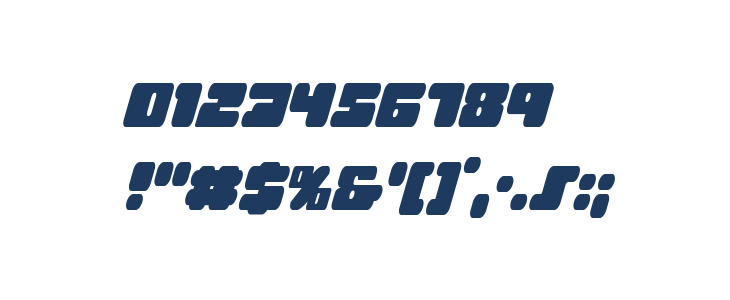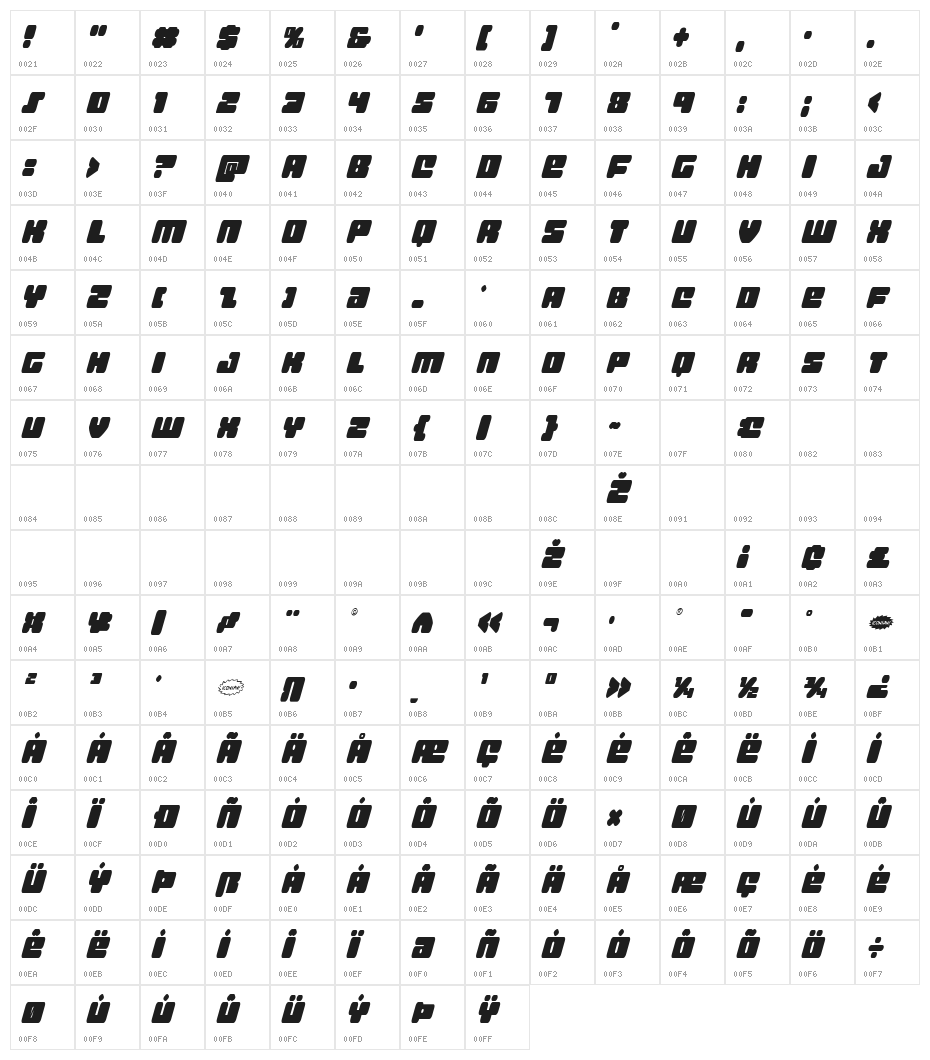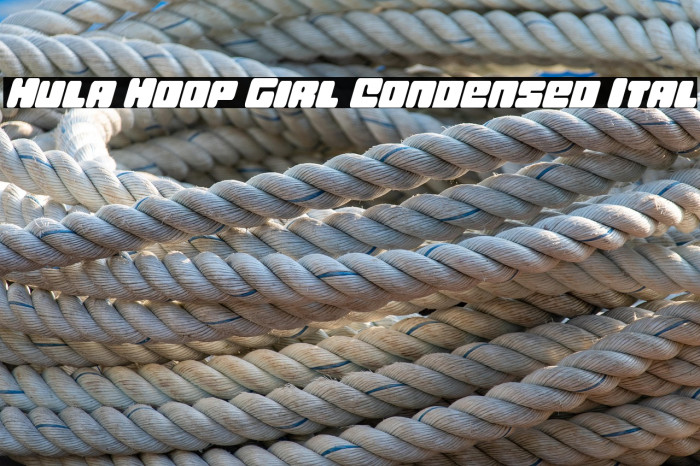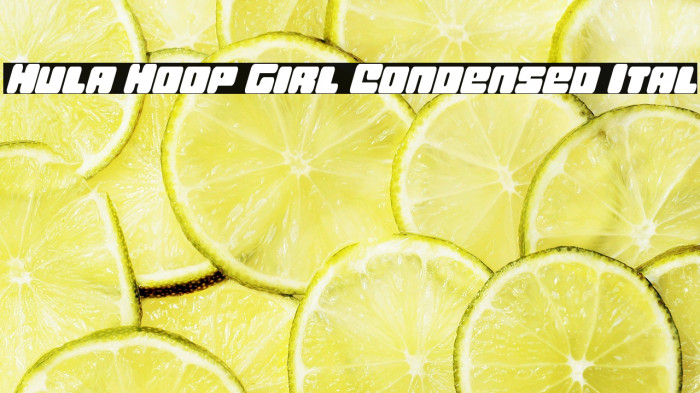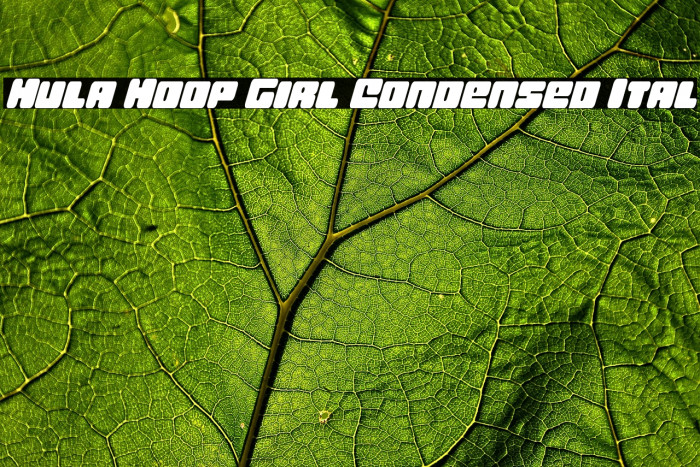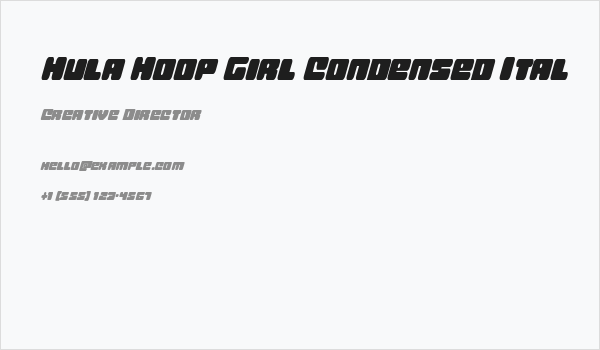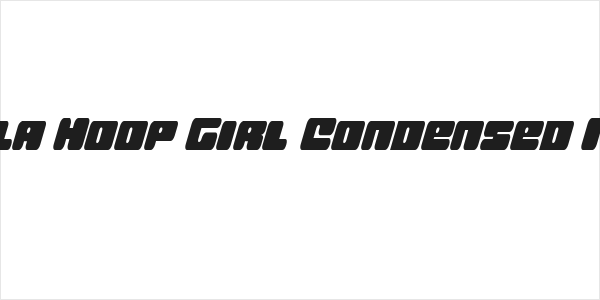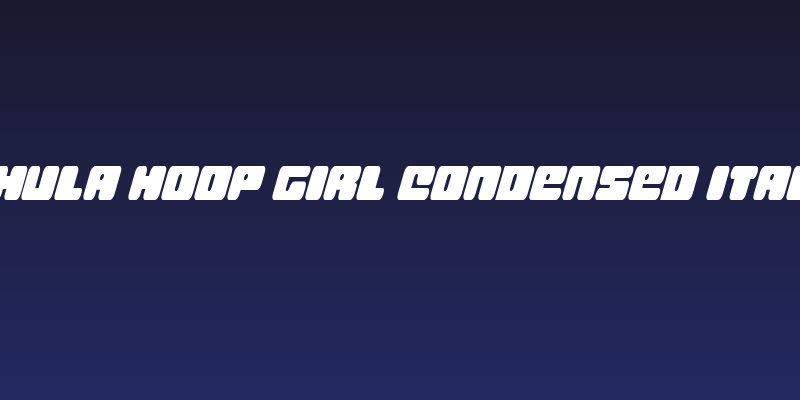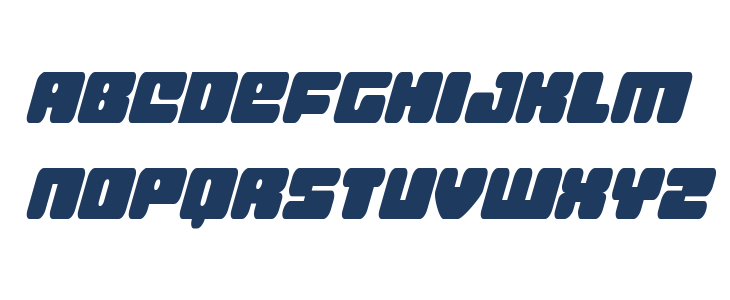
Hula Hoop Girl Condensed Ital Font
Hula Hoop Girl Condensed Ital Description
This font features a bold, condensed style with a distinct italic slant, giving it a dynamic and energetic appearance. The characters are thick and blocky, with rounded edges that soften the overall look. Despite its boldness, the condensed nature allows for efficient use of space, making it suitable for headlines or titles where impact is essential. The uniform stroke width across all characters provides a cohesive and modern feel, while the italic angle adds a sense of motion and flair. The font includes a full set of uppercase and lowercase letters, numerals, and a variety of special characters, ensuring versatility in design applications.
| Proposed Projects | Ideal for sports branding, dynamic posters, eye-catching headlines, and modern logo designs. |